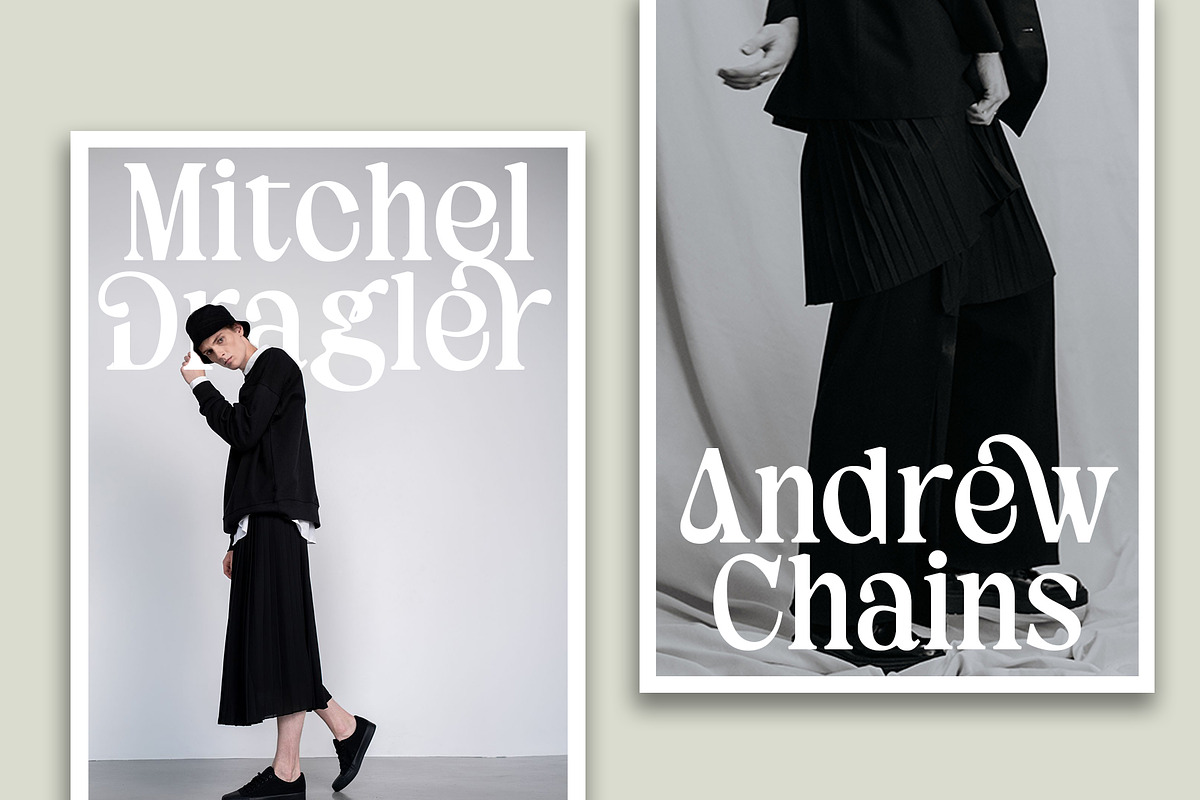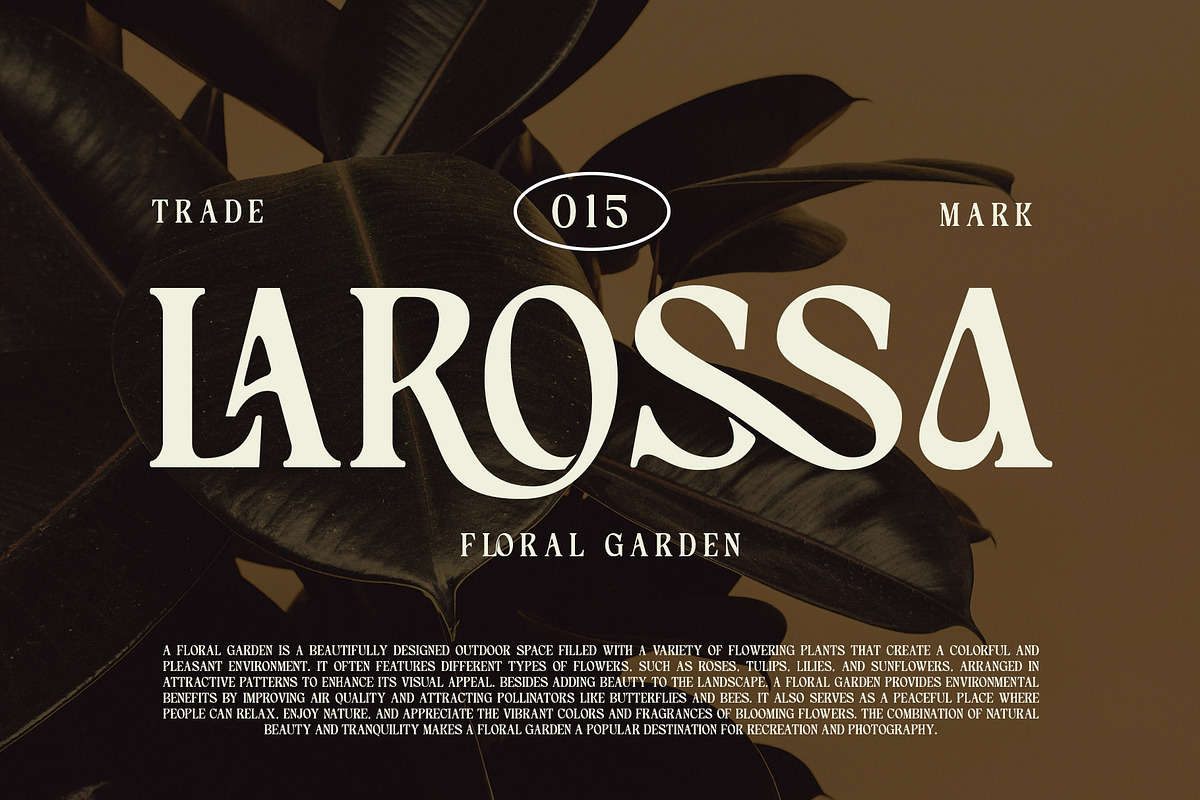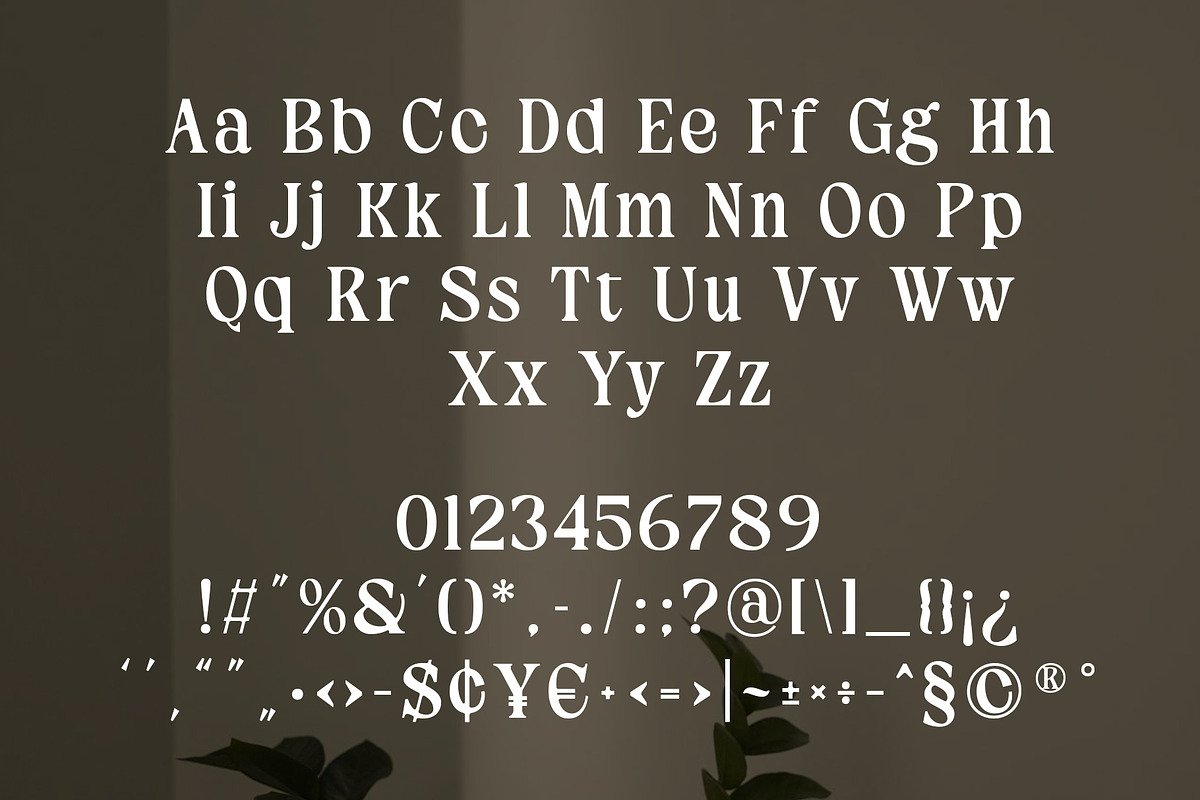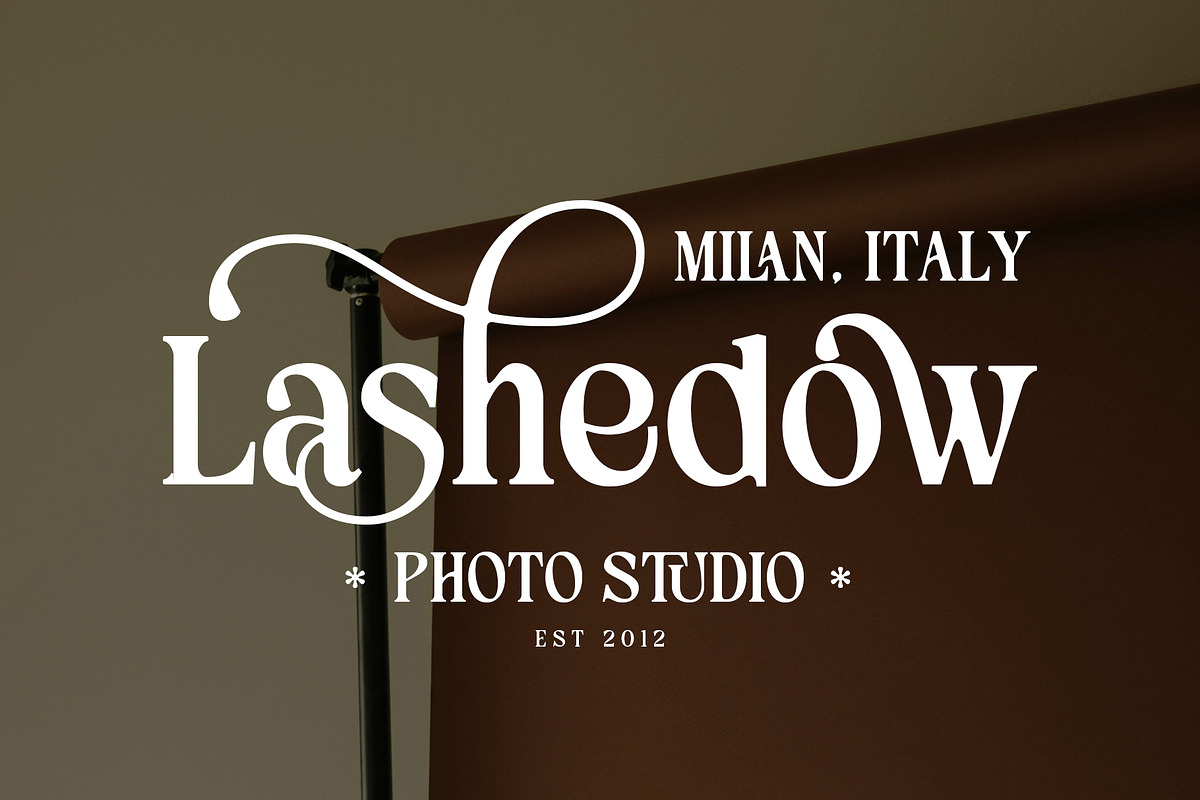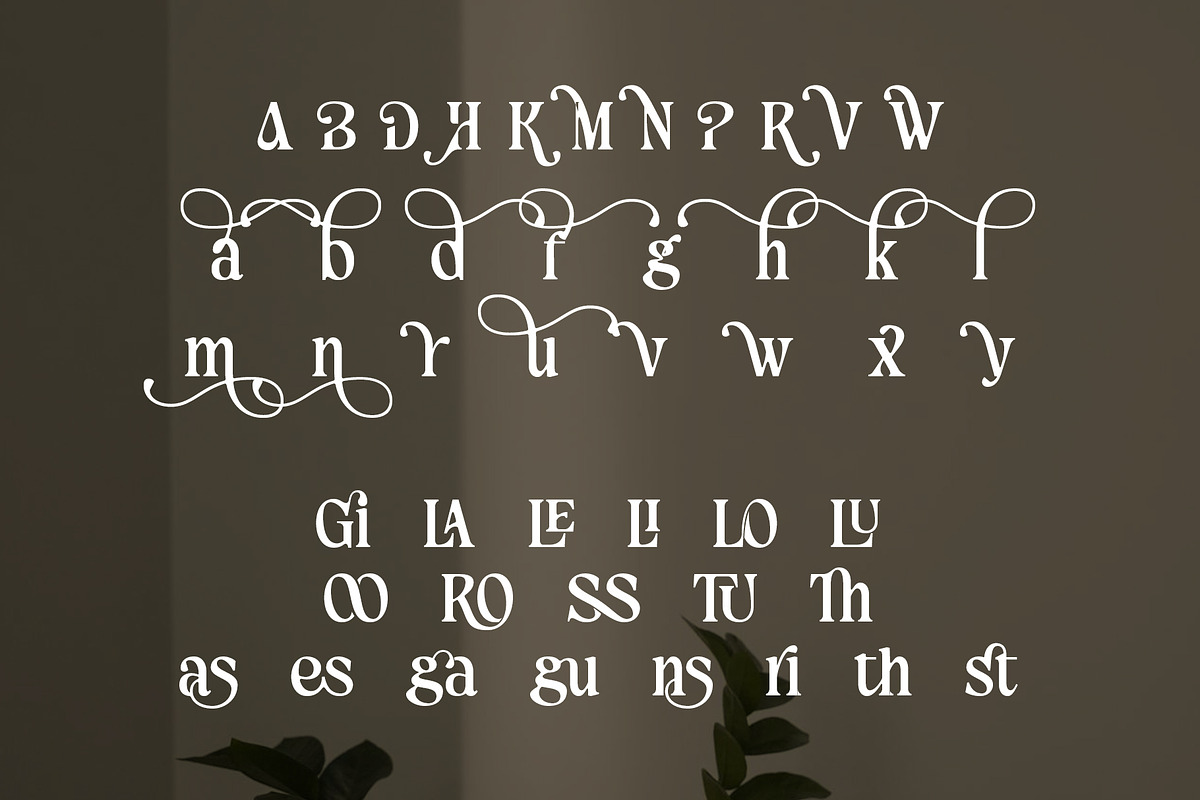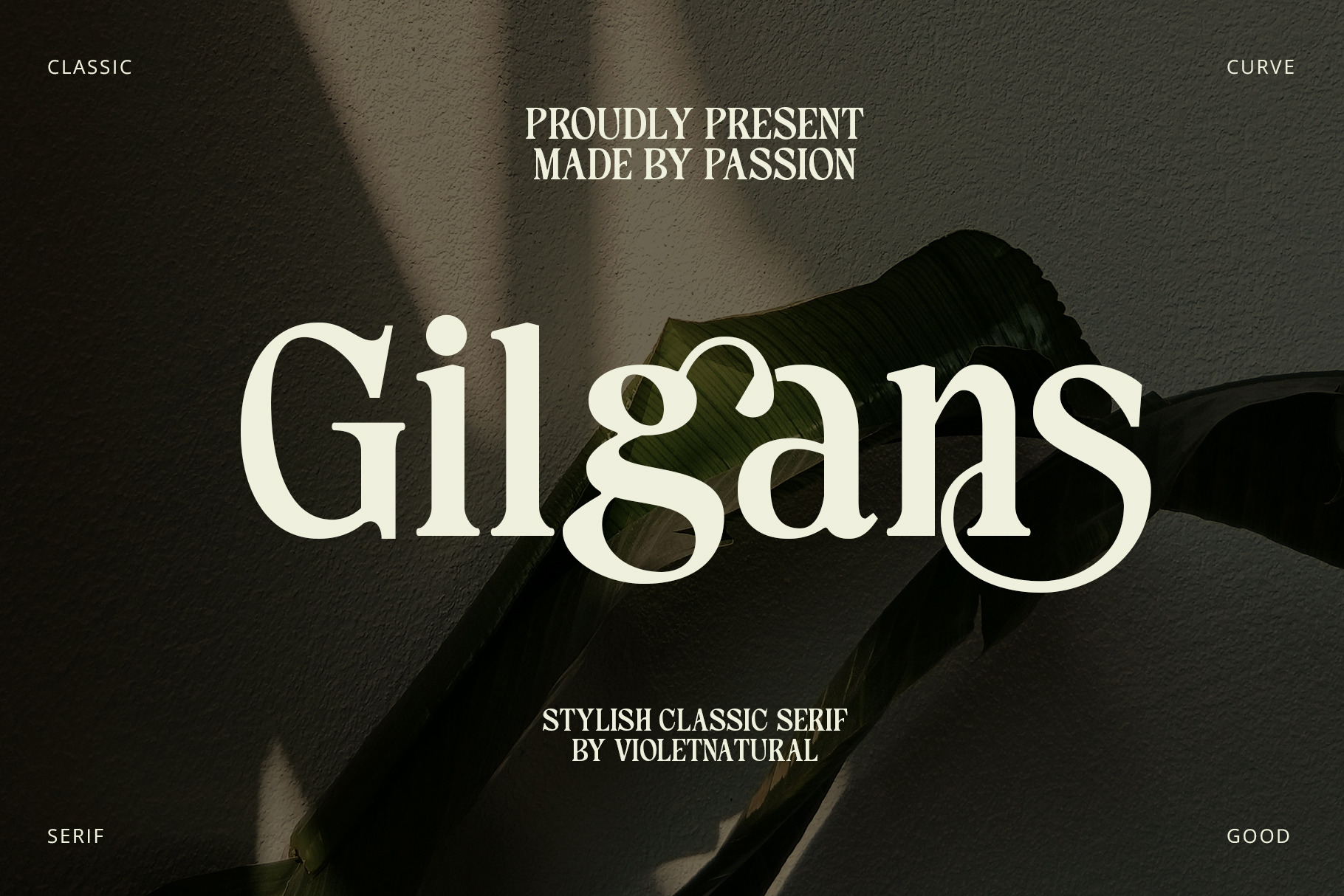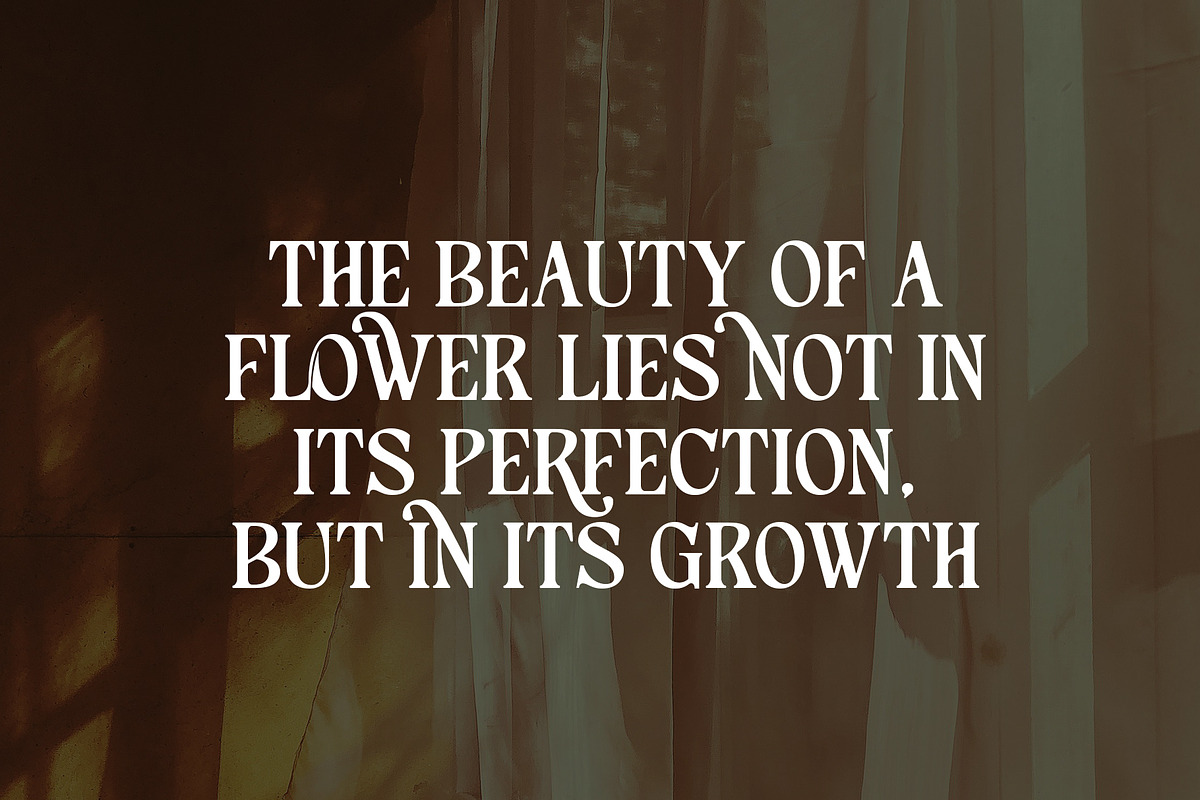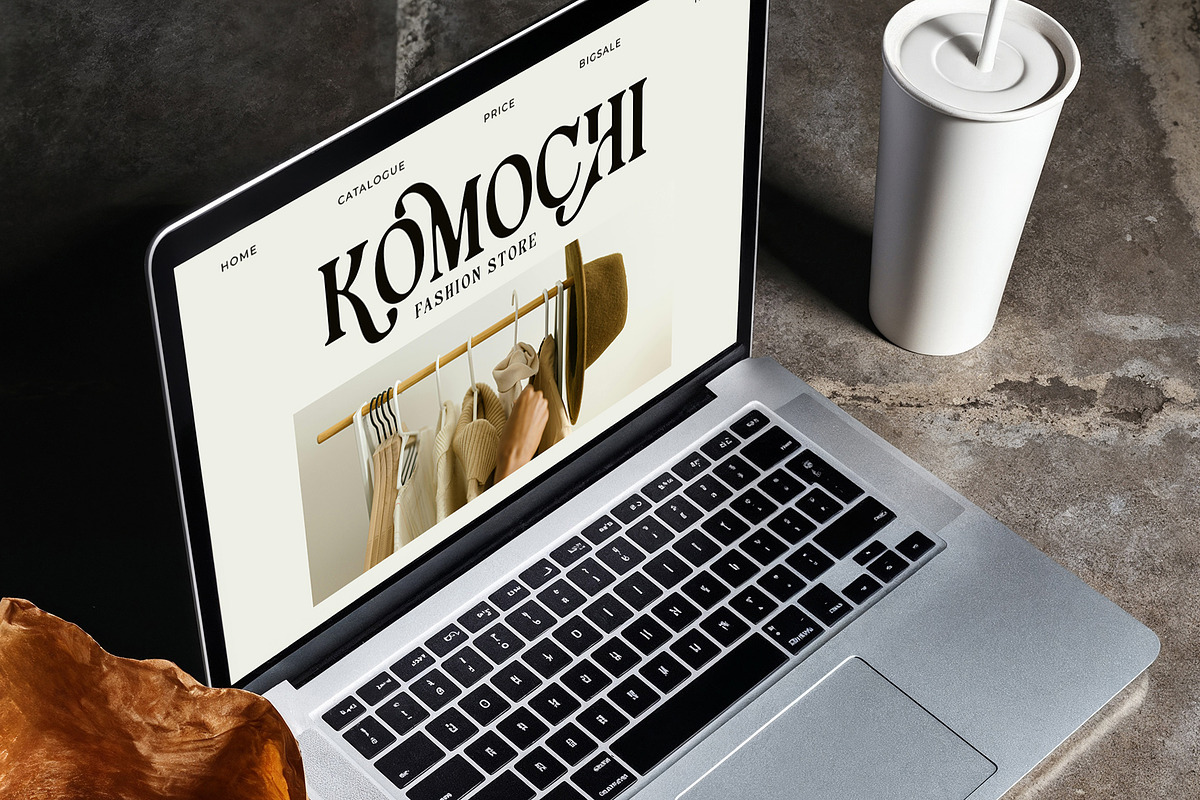
Gilgans Classic Serif Typeface
Gilgans Serif a luxurious and sophisticated aesthetic, making it highly suitable for premium branding and high-end visual identities. It creates an atmosphere of elegance, exclusivity, and refinement, allowing designs to feel more polished and prestigious. The overall appearance reflects a harmonious balance between classic beauty and contemporary style, resulting in a timeless look that remains visually appealing across different design trends. Its strong presence makes it particularly effective for fashion labels, beauty brands, luxury products, editorial layouts, wedding stationery, and upscale marketing materials. By conveying a sense of confidence, artistry, and professionalism, this font enhances the perceived value of a brand and helps establish a memorable, distinctive, and sophisticated visual impression. File Included otf ttf woff woff2 file